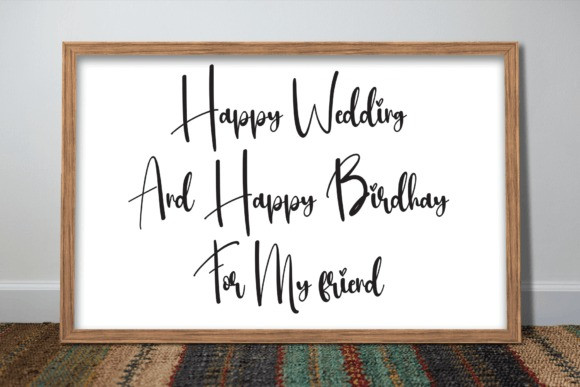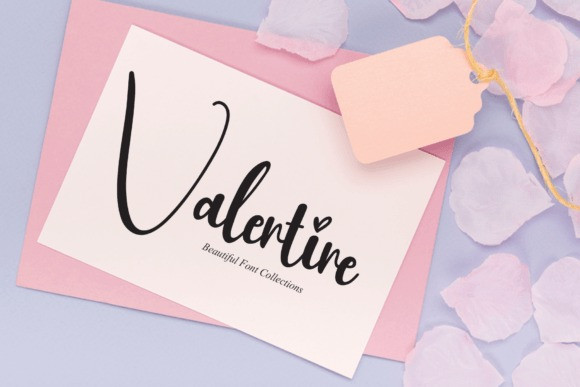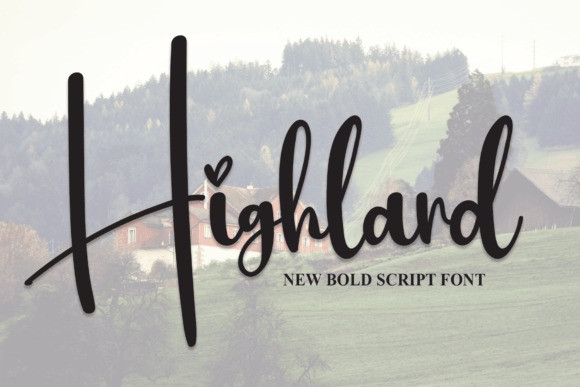
Highland Script Font
Highland Script Font, is a simple handwritten font specially crafted to give your designs an extraordinary feel. Add it to your wall displays, wedding invitations, social media posts, logos, advertisements, product packaging, product designs, labels, photography, watermarks, invitations, stationery, and many more, and make them outstanding!